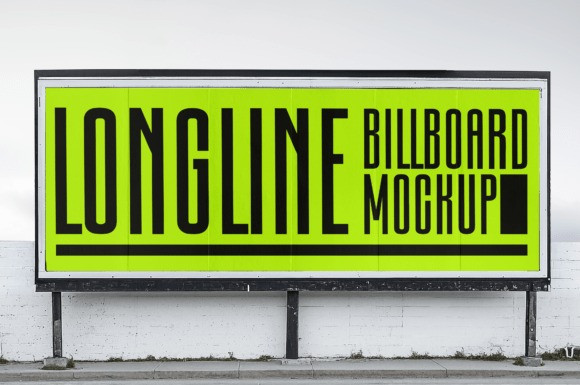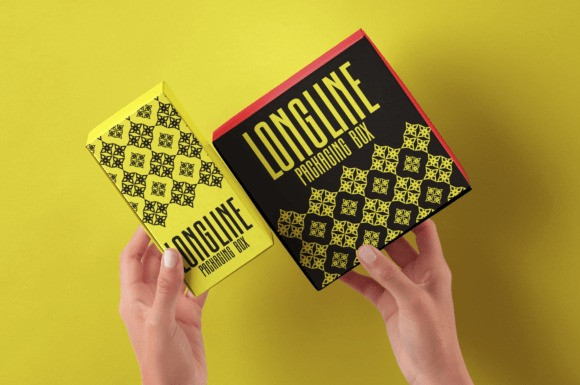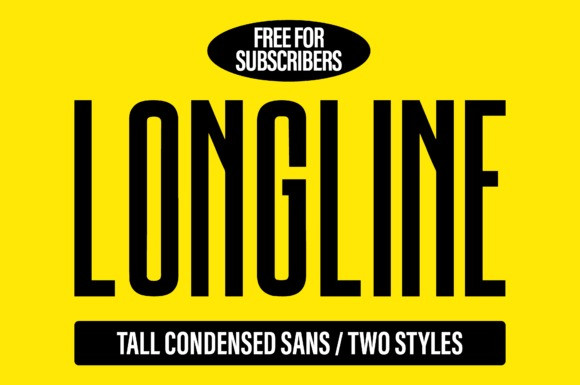
Longline Font
Longline Font, a modern tall sans serif font designed for bold statements and clean minimal layouts. This condensed minimalist typeface features extra‐tall proportions, razor sharp lines and a tight structure that gives your designs a striking vertical rhythm. Perfect for posters, branding, editorials, social media titles, logo design, magazine headers, product packaging and website hero headlines, Longline brings a contemporary and stylish look to any creative project.